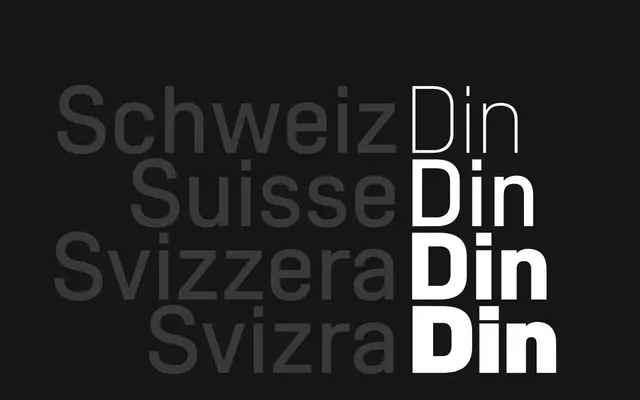
SwissDin
A geometric, DIN-inspired sans by Ian Party that channels Swiss design's preoccupation with form, structure and function into 20 styles and a variable font.
Designed by Ian Party at Newglyph, SwissDin applies an architectural, constructed logic to the Latin alphabet, drawing on the Swiss design tradition's rigour rather than any specific historical DIN specimen. The family spans 20 styles with 431 glyphs per style and is also available as a variable font with weight and italic axes. Language support covers a broad range of Latin-script languages from Afrikaans to Zulu.
SwissDin is described as architectural and constructed, drawing on DIN-style geometric rationalism and Swiss design principles of form, structure and function — placing it firmly in the geometric sans category.